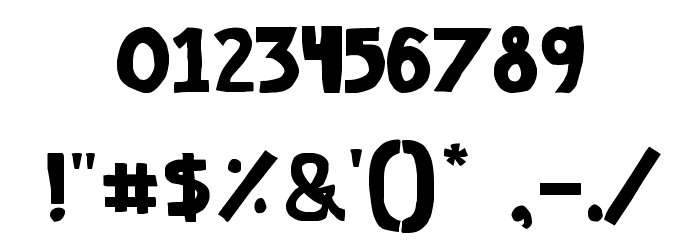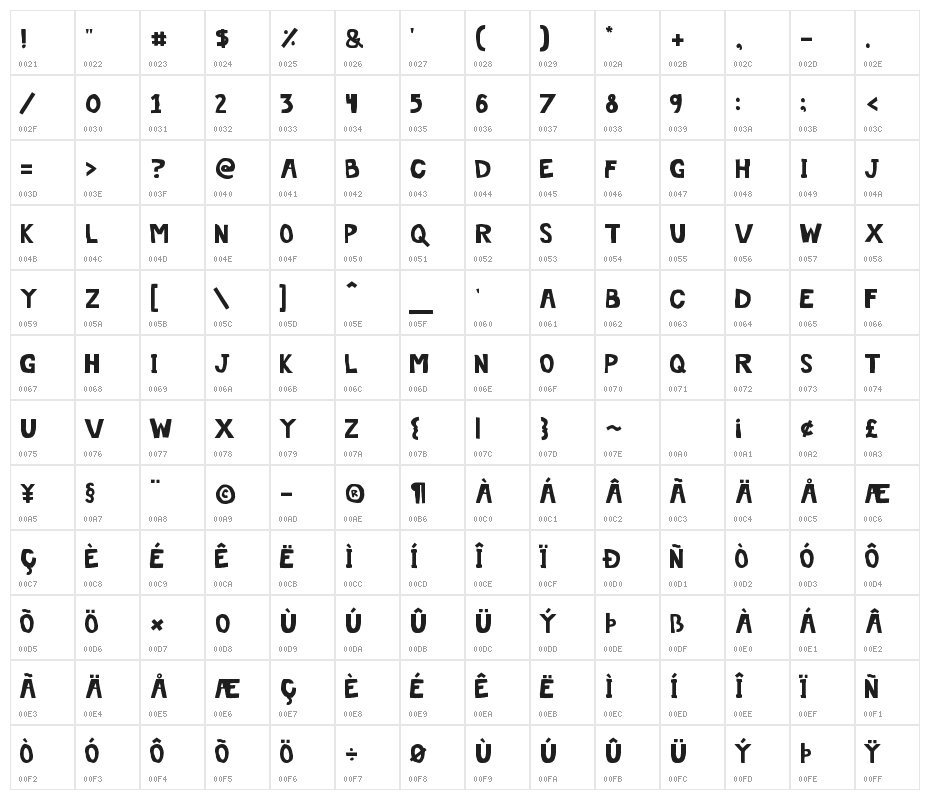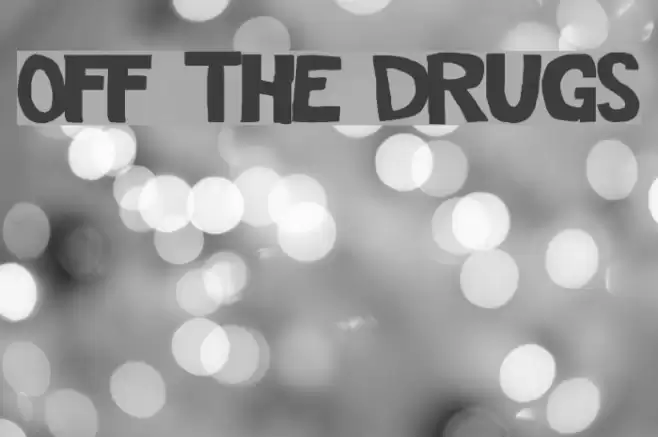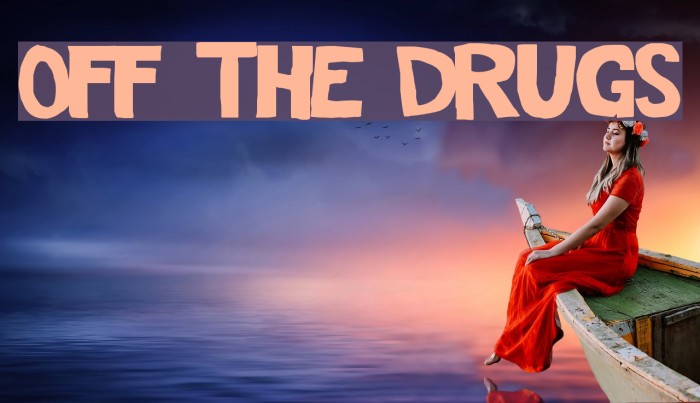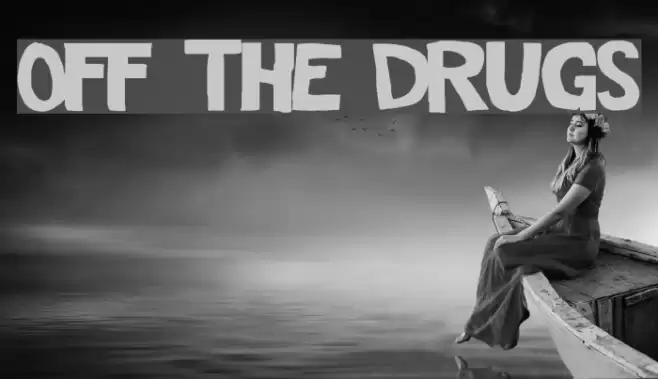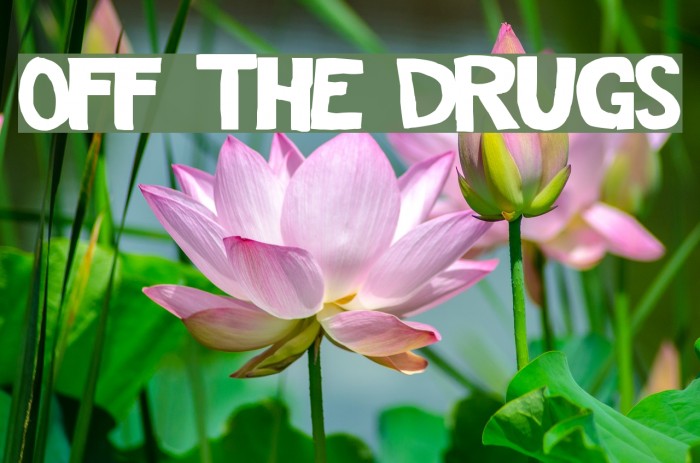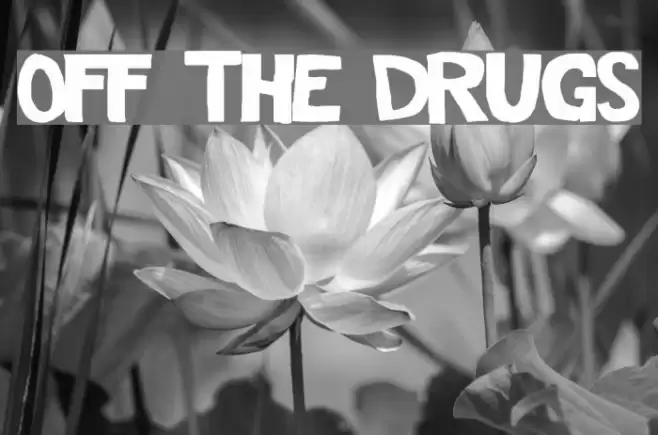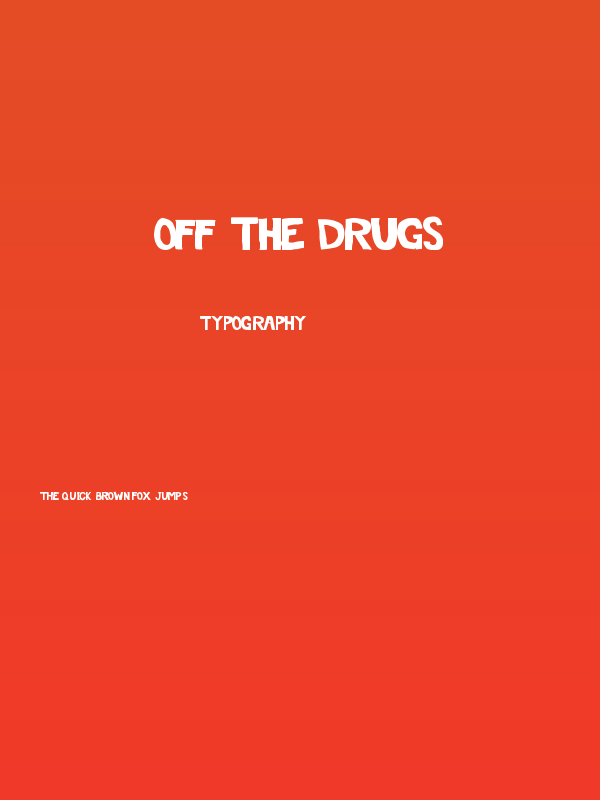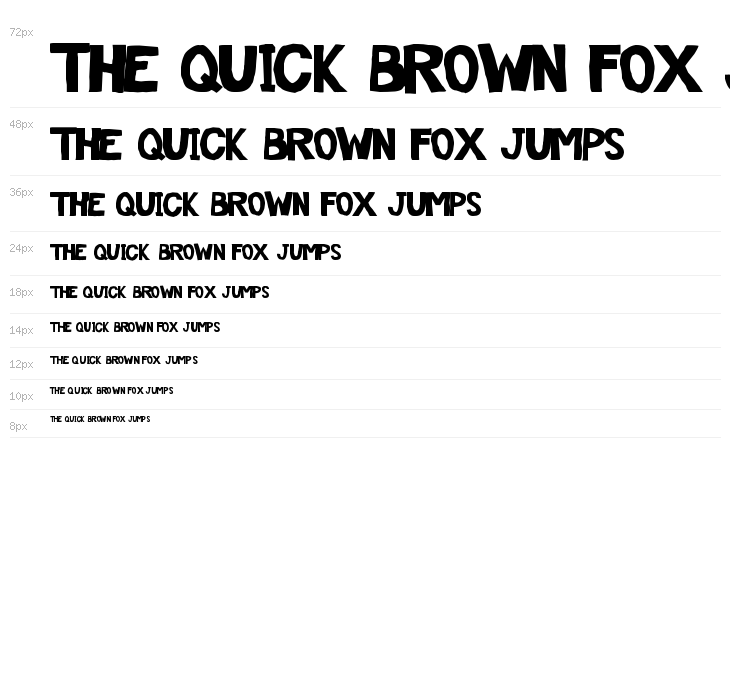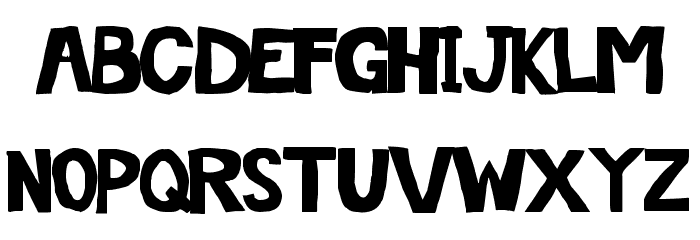
Off The Drugs Font
Off The Drugs Description
This font features a bold and playful style with a hand-drawn appearance. The letters are slightly irregular, giving it a casual and informal feel. The uppercase and lowercase characters maintain a consistent thickness, contributing to its bold look. The numbers and special characters follow the same playful design, making the font cohesive across all characters. The overall appearance is energetic and dynamic, perfect for projects that require a fun and lively touch.
| Overall Style | Playful, Casual, Energetic |
| Proposed Projects | Ideal for children's books, comic strips, playful branding, and event posters. |